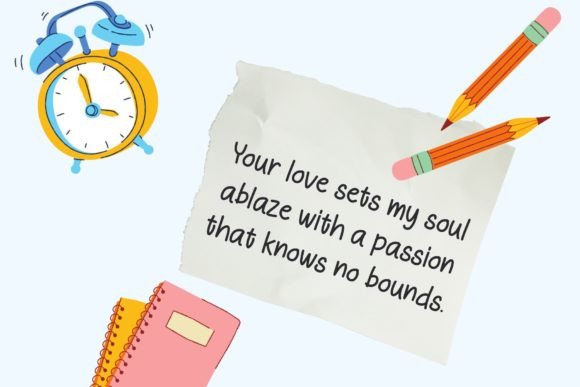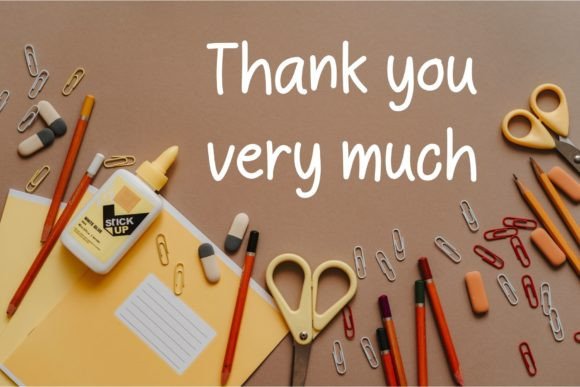
The Perfect Font for a Fresh New Year
Remember the excitement of rummaging through your school supplies on the first day of class? The thrill of unwrapping new pens, colorful folders, and, of course, a fresh notebook? For designers, there’s no shortage of creative moments like these – and that’s exactly why we’re excited to introduce the Back to School Font.
This charming font captures the essence of learning and growth, making it the ideal choice for teachers, students, and anyone looking to create educational content that engages and inspires. With its clean lines and playful characters, the Back to School Font adds a touch of nostalgia and excitement to any project. Whether you’re creating posters, worksheets, or school-related graphics, this font is a valuable addition to any designer’s toolkit.
Back to School Font Key Features
- Unique Characteristics: The font features a playful, cursive design with subtle rounded edges and a relaxed feel, making it perfect for educational and casual use.
- Font Weight and Style: The font comes in a range of weights and styles, including Light, Regular, Bold, and Italic, allowing designers to customize the look and feel of their text.
Designer Review: “Back to School Font”
Overall, I’d say “Back to School Font” is a fun and quirky choice for any project related to education. It’s perfect for a summer camp brochure, a teacher’s blog, or even a kids’ app.
- ✨ The playful feel of the font is great for creating a lighthearted atmosphere.
- ✨ The font’s rounded edges make it easy to read, even at smaller sizes.
- ✨ The variety of weights and styles available means you can customize the font to fit your project’s needs.
However, I do have a few concerns:
- ⚠️ The font may be too casual for more formal educational materials, like textbooks or academic journals.
- ⚠️ Some characters, like the ‘g’ and ‘q’, may be difficult to recognize at small sizes.
- ⚠️ The font’s quirky feel may not be to everyone’s taste.
Overall, I think “Back to School Font” is a great choice for the right project. With its playful feel and customizable options, it’s sure to add a fun touch to any educational design.
Use “Back to School Font” for:
– Creating educational materials, such as lesson plans, worksheets, and presentations.
– Designing school-related graphics, such as flyers, posters, and social media posts.
– Adding a playful touch to educational content, such as memes and infographics.